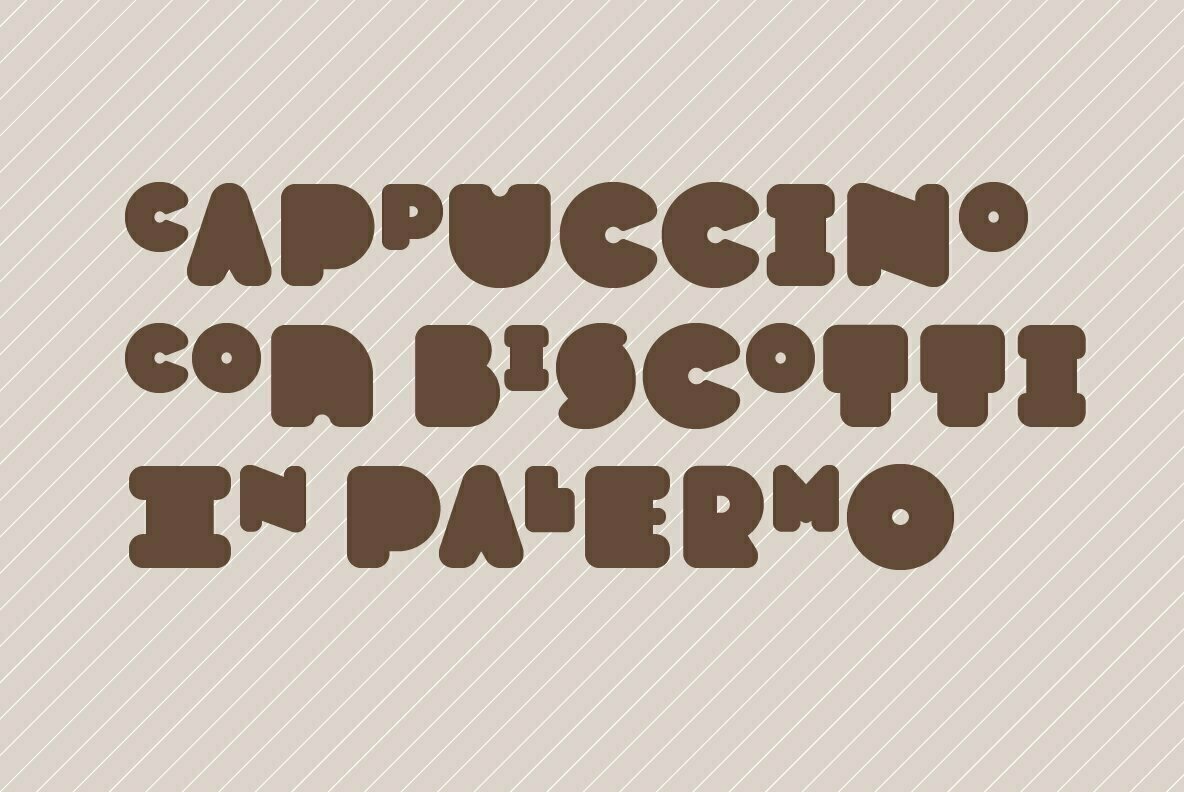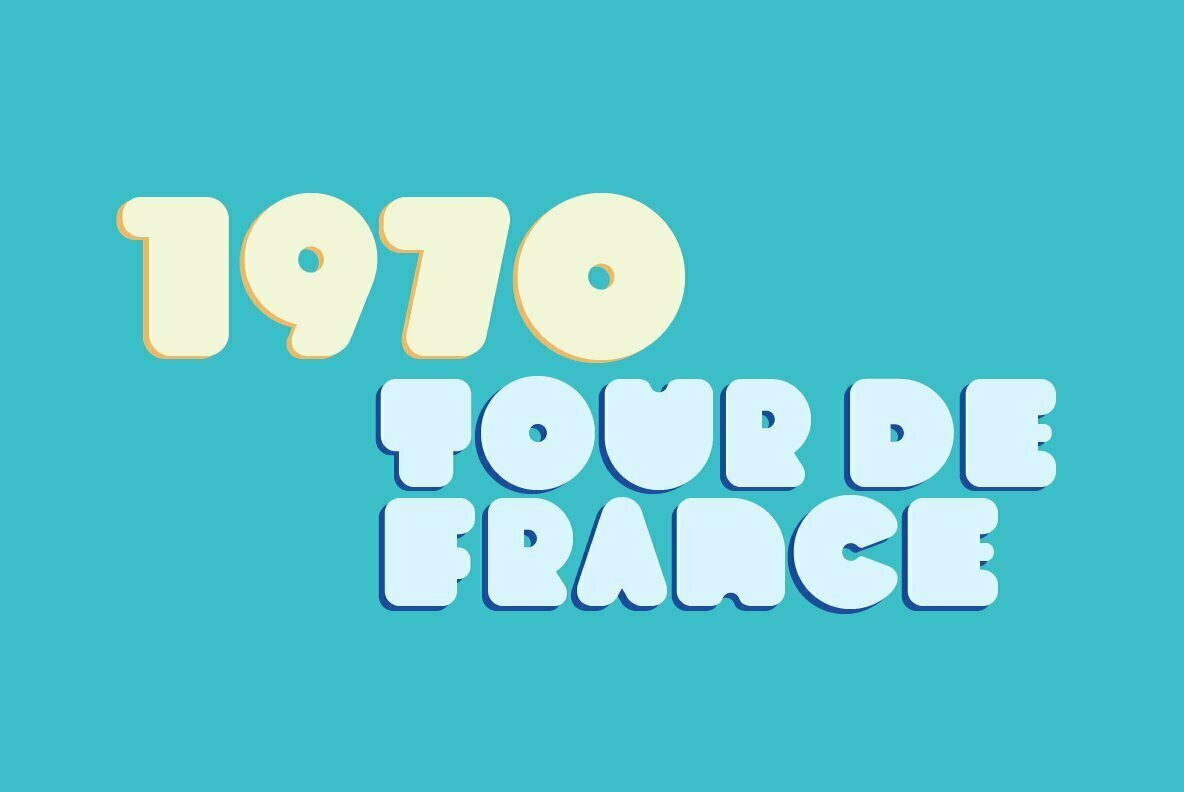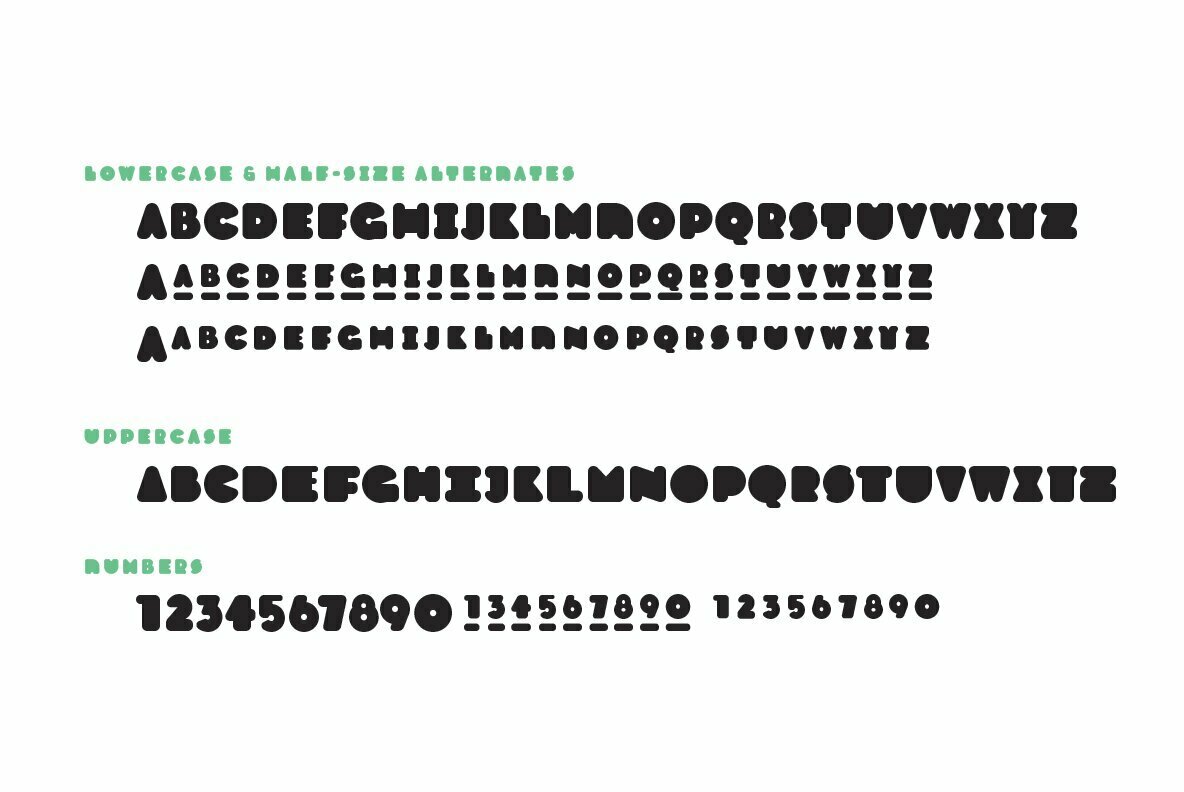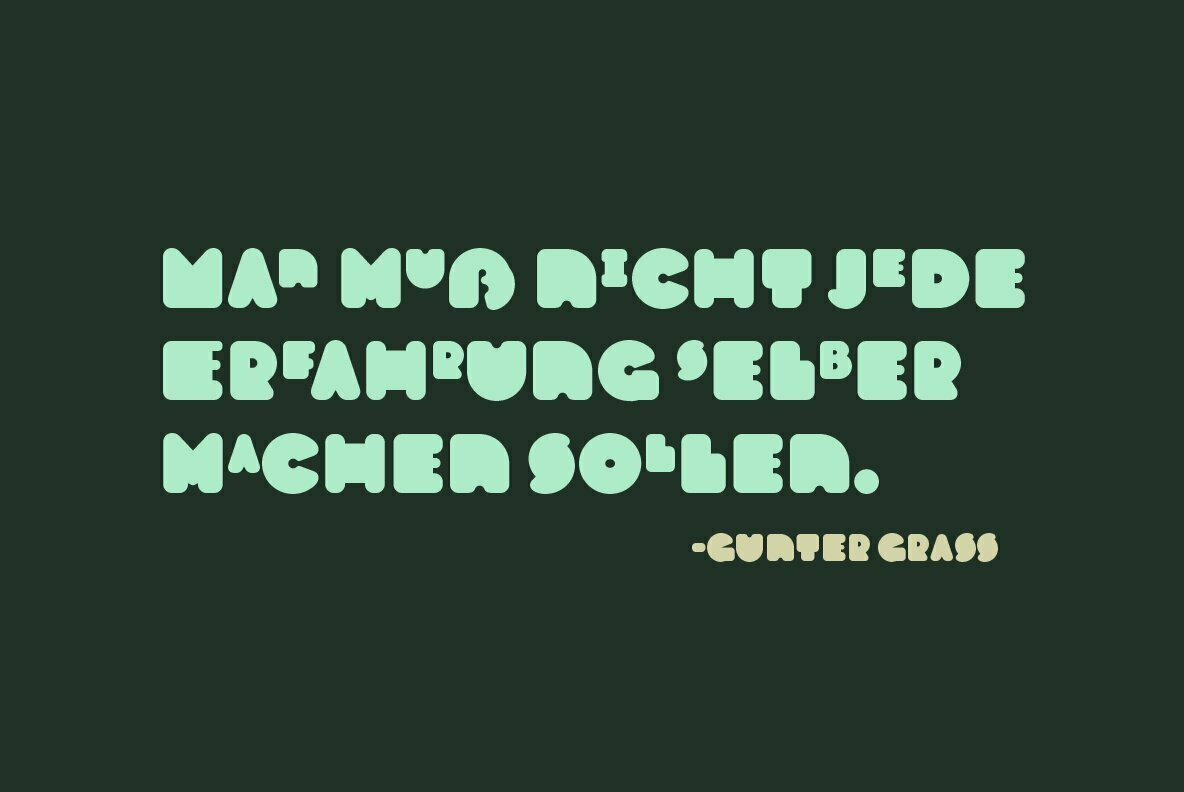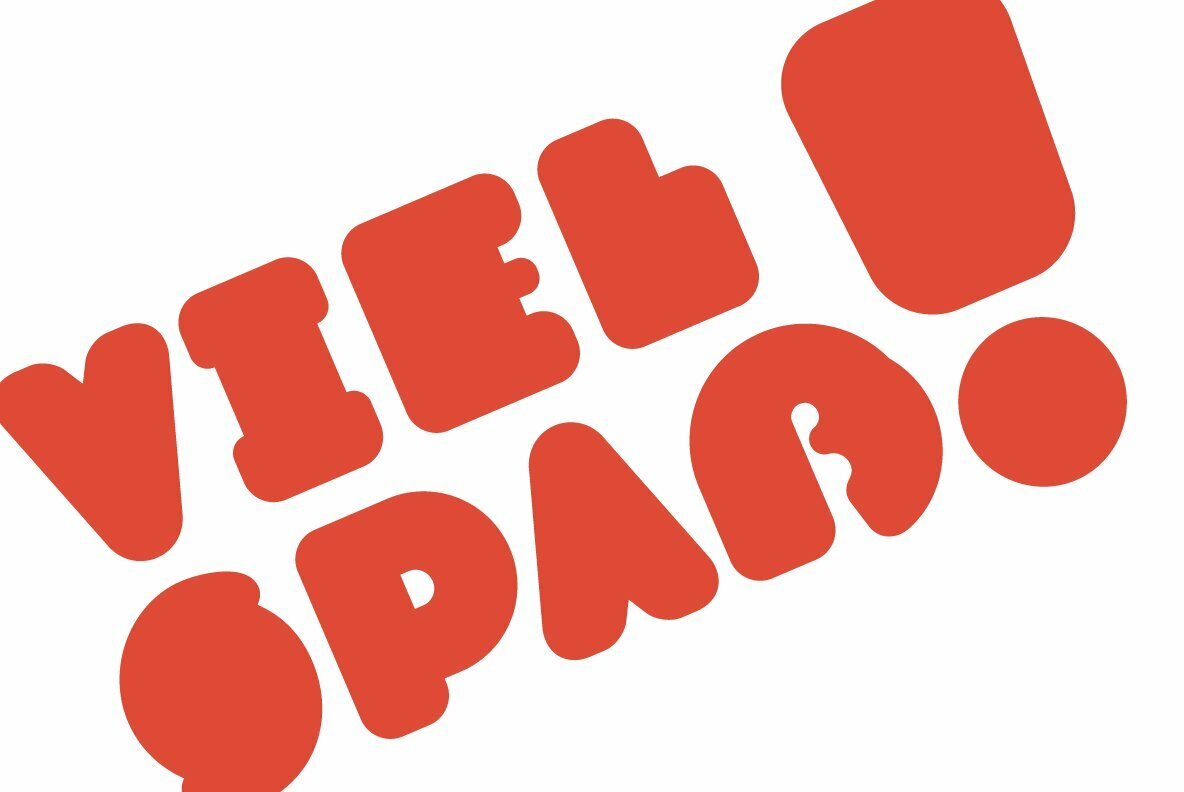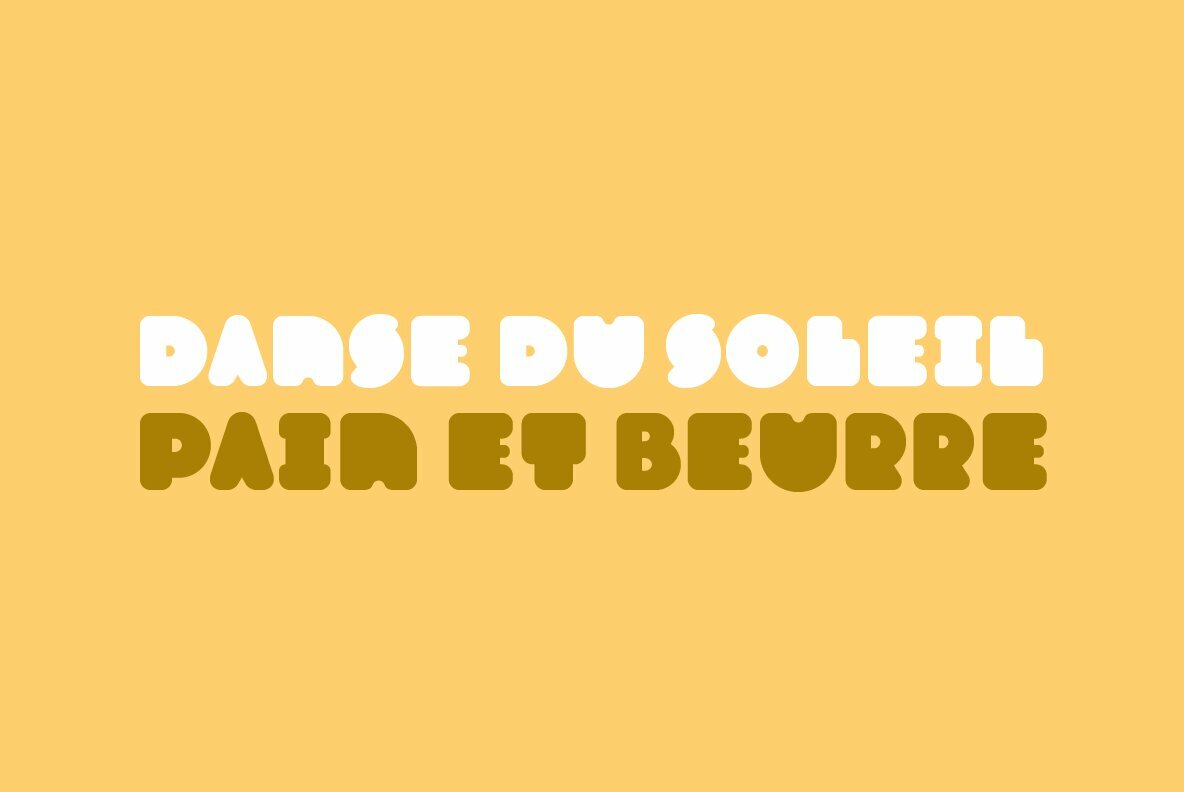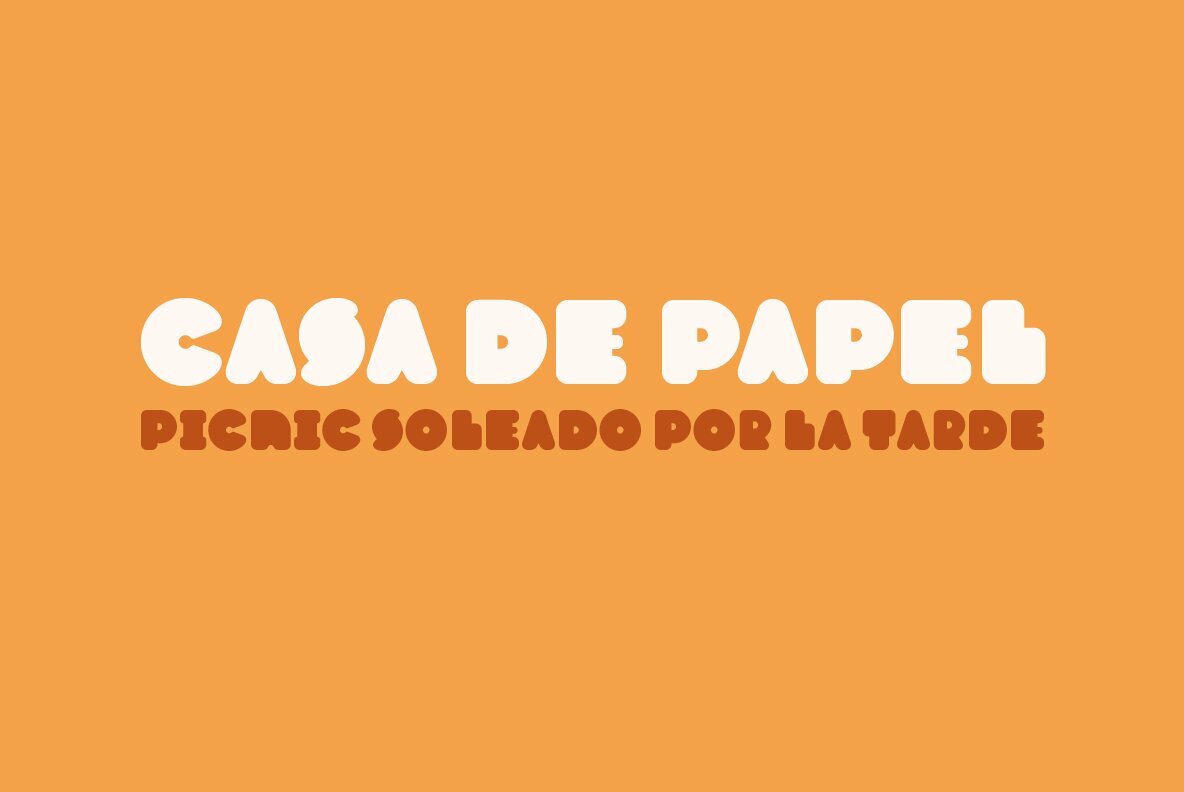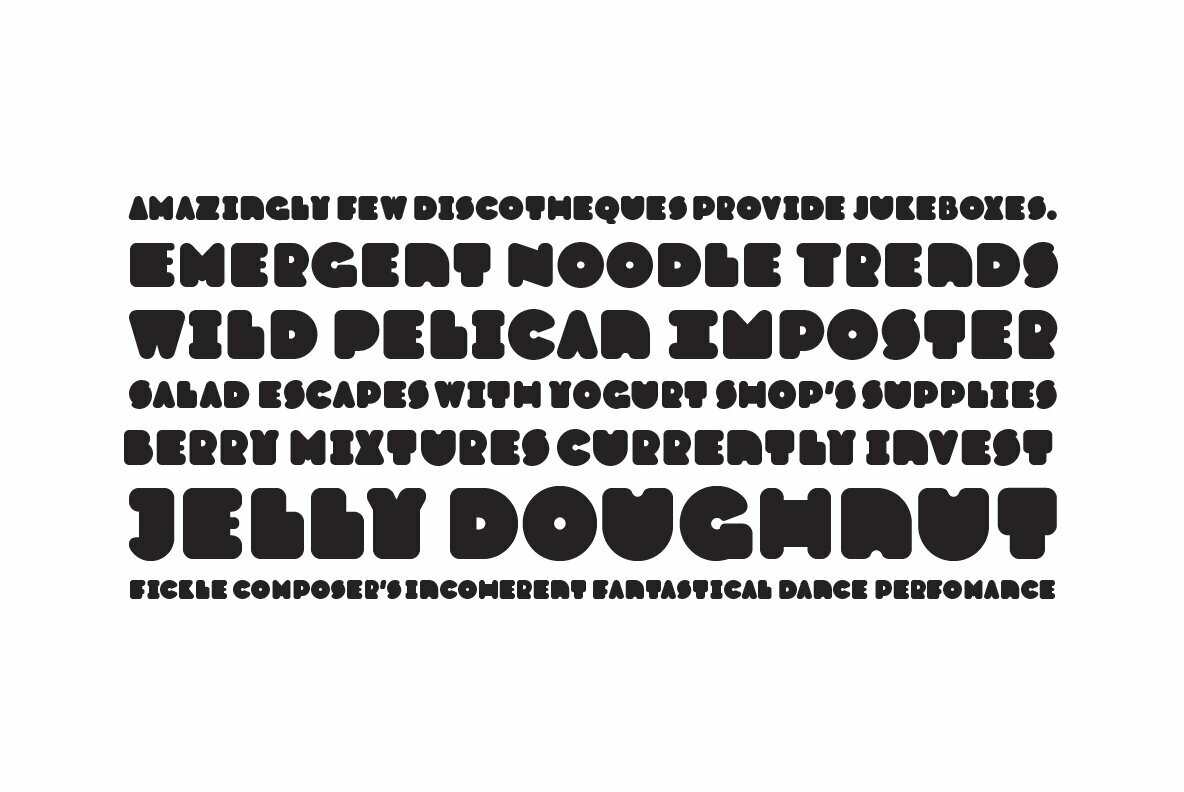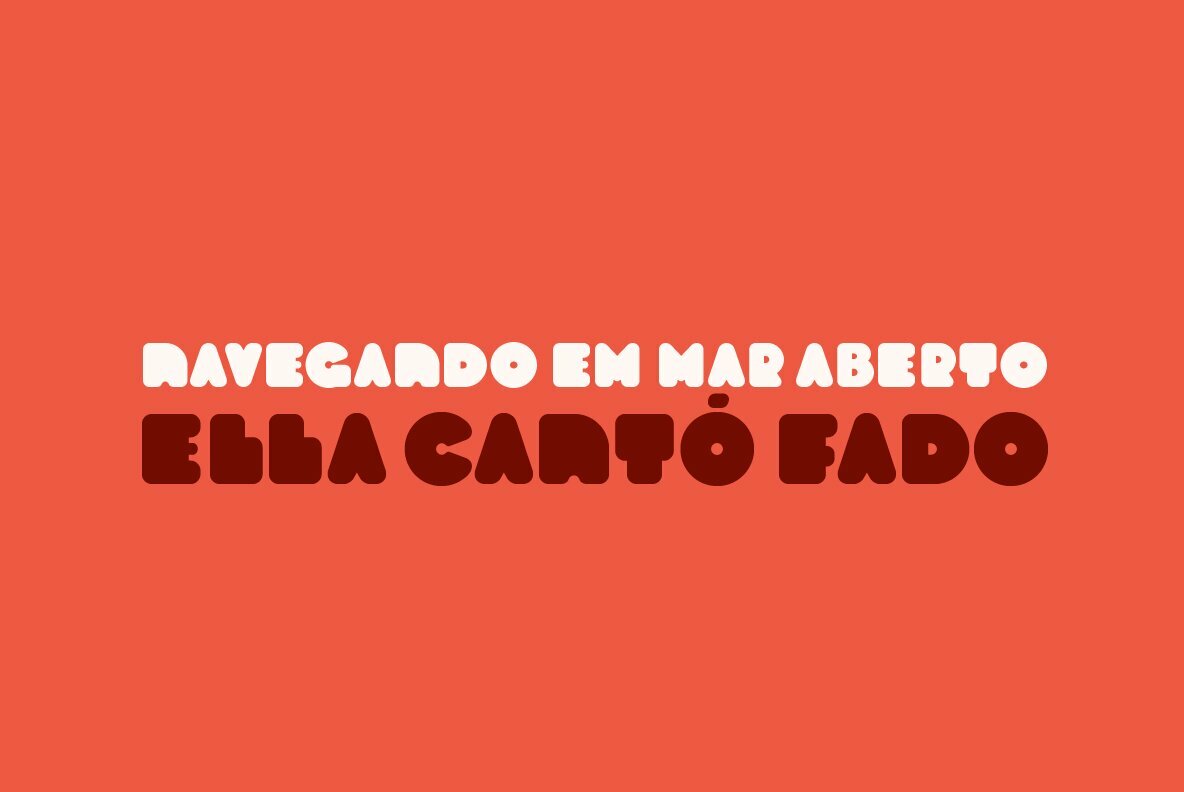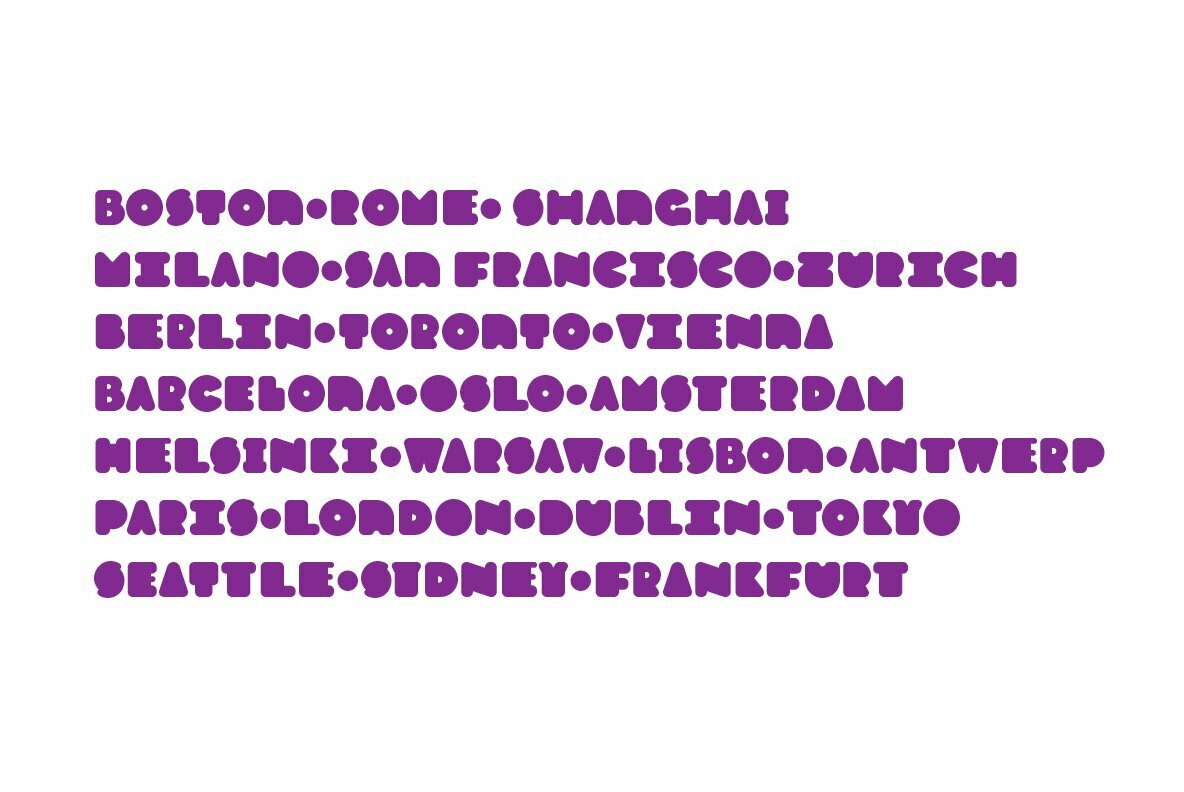
Varese Soft Font
Varese Soft Regular
Varese is a geometric and modular typeface inspired by early 1900s European posters. It is heavy and excellent for display or large body text. The design of this font explores the boundaries between unity and variety in a playful rhythmic dance. Varese will give your content a warm, nostalgic, robust, and friendly tone.
The lowercase is similar in form to the uppercase, yet many of the lowercase letters have interior spaces and several have some variations on the form. The lowercase also has two alternate glyph sets that are half size and align with cap height. One of the alternate glyph sets has an underline and the other set does not.